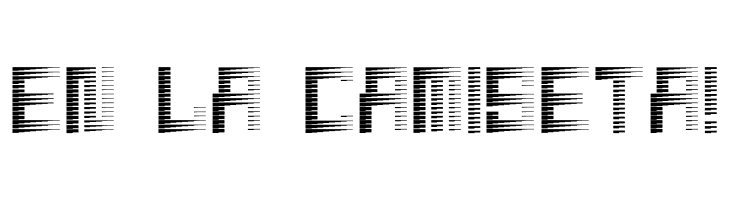
Jimmy Collins Demo Version Font
- Font: Jimmy Collins Demo Version
( Fonts by Dave Fabik - home.teleport.com/~dfabik/ )
A modern, glitch-inspired font with dynamic horizontal lines and playful lowercase letters.